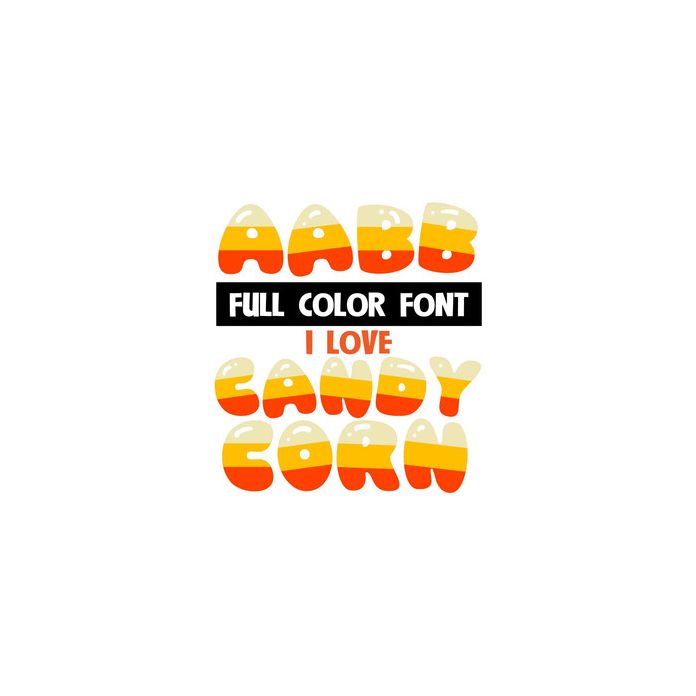
This full-color font features flat but cute tri-color letters that look like candy corn stripes. MIx up both cases as you type for more creative looks.